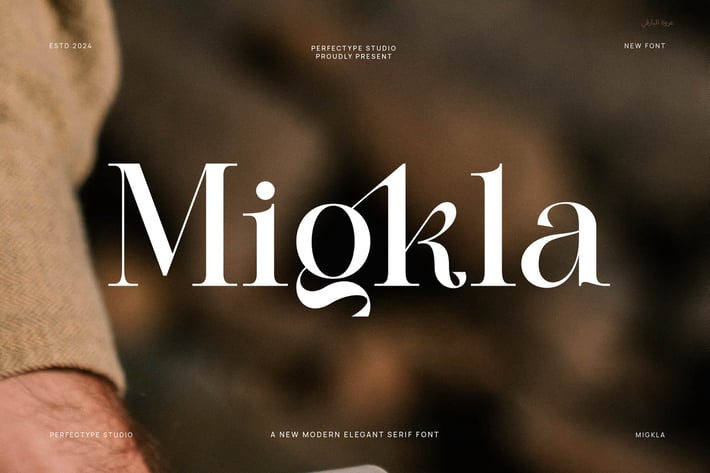
Migkla Elegant Serif Font
Migkla is an elegant modern serif font designed to bring sophistication and clarity to your projects. First, its clean lines and well-balanced letterforms create a timeless yet fresh look. Because of this, it is perfect for designers seeking a font that combines classic serif style with modern simplicity.
Moreover, Migkla fits a wide range of design needs. You can use it for logos, headlines, editorial layouts, invitations, and branding projects. In addition, its clear characters ensure excellent readability even at small sizes. So, it adapts smoothly for both print and digital use.
Furthermore, Migkla balances sharp serifs with soft curves. This contrast adds personality without making the text look busy. This means it works especially well for fashion brands, luxury products, wedding materials, and stylish magazines. Besides, the font pairs beautifully with clean sans serif fonts, making it easy to create harmonious and modern designs.
Another advantage is Migkla’s versatility. It performs well in both large display text and smaller paragraphs. As a result, it offers flexibility without sacrificing elegance or clarity. In fact, this font’s blend of tradition and modernity makes your message memorable and polished.
To sum up, Migkla offers:
- Elegant modern serif design
- Clean, balanced letterforms
- Clear and readable at all sizes
- Versatile for print and digital projects
- Ideal for fashion, luxury, weddings, editorial
- Complements sans serif fonts
- Stylish and professional look
Overall, Migkla provides a refined serif font that adds charm and clarity to any design. This way, your work stands out with elegance and modern style.